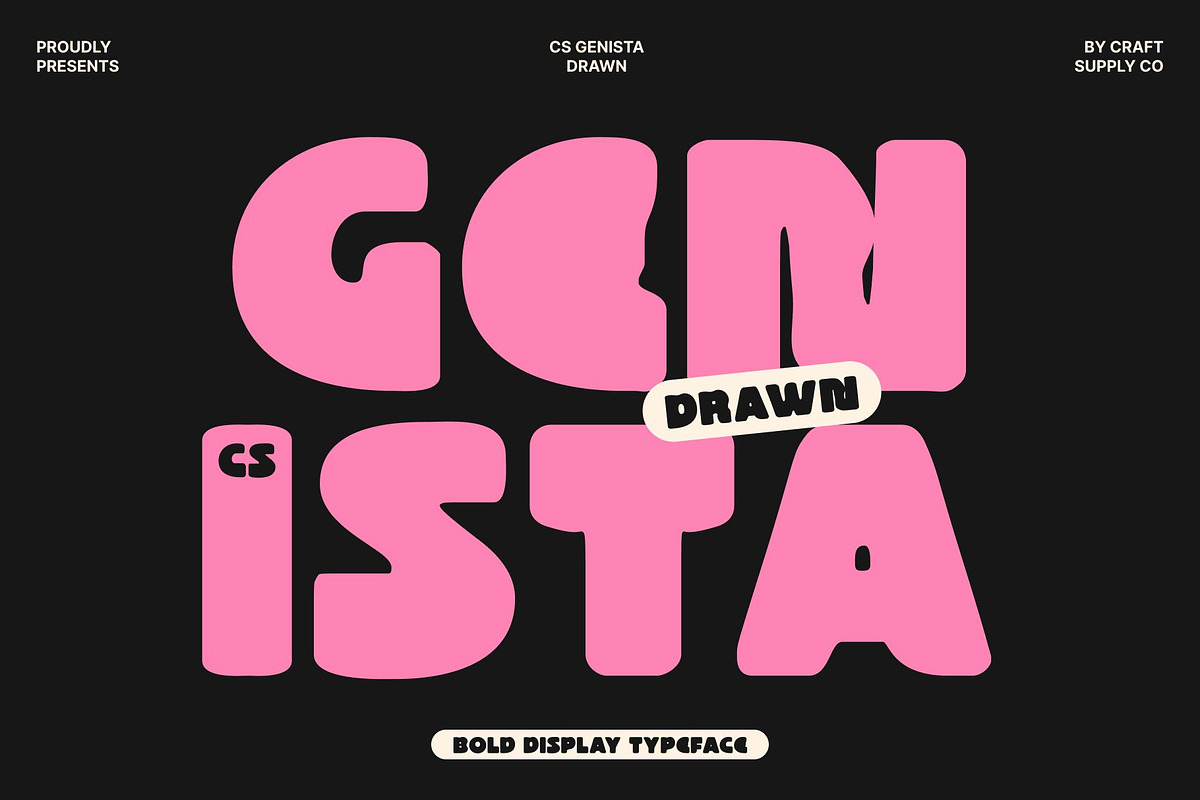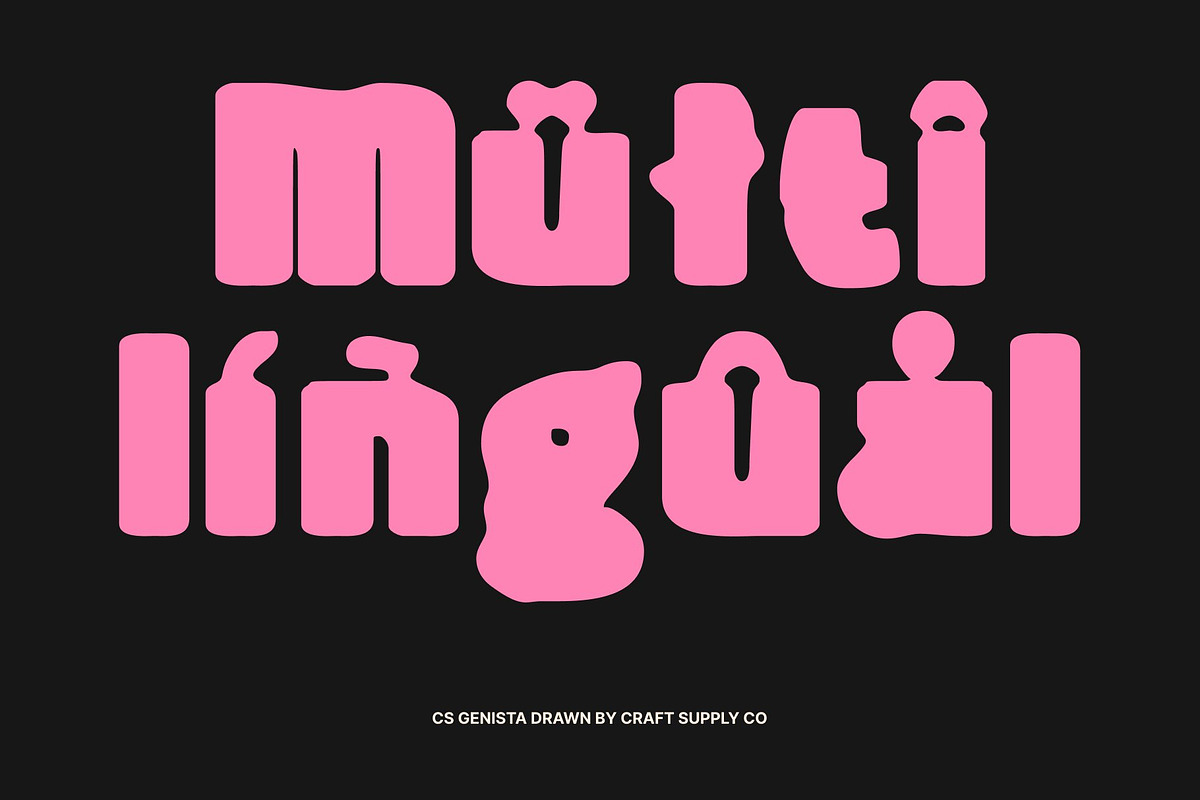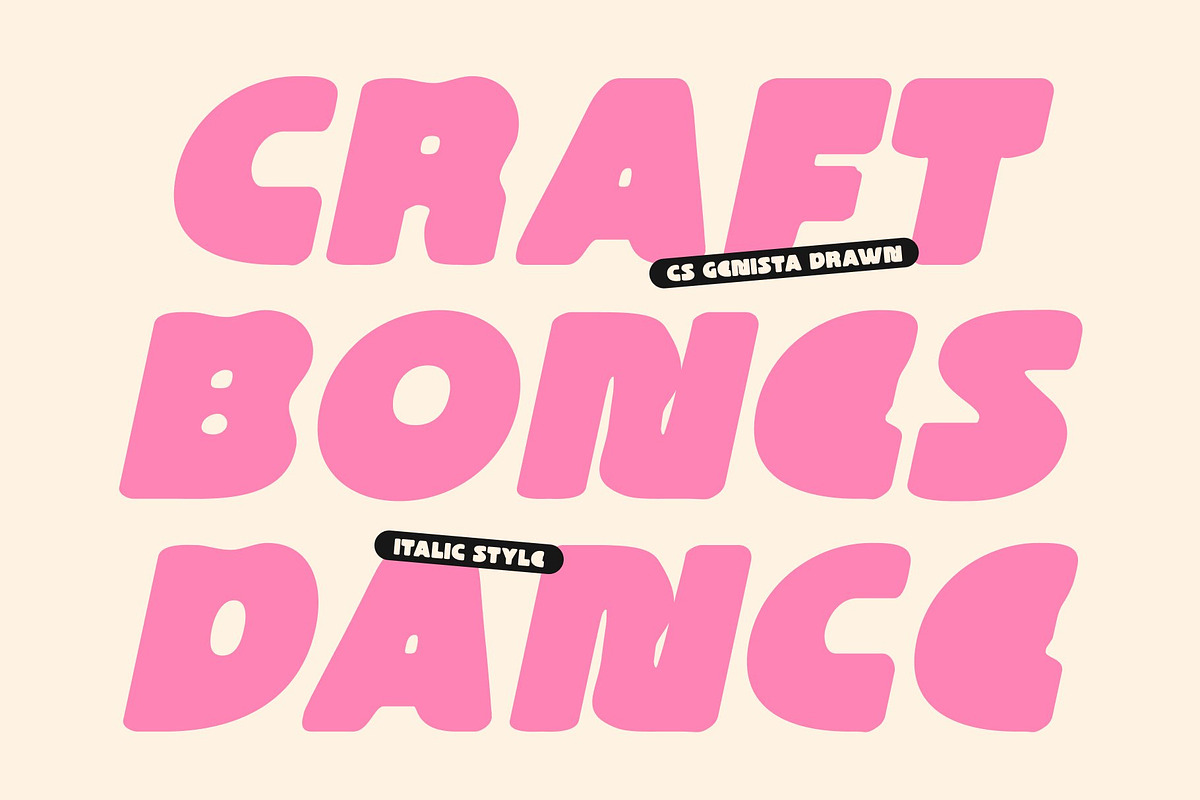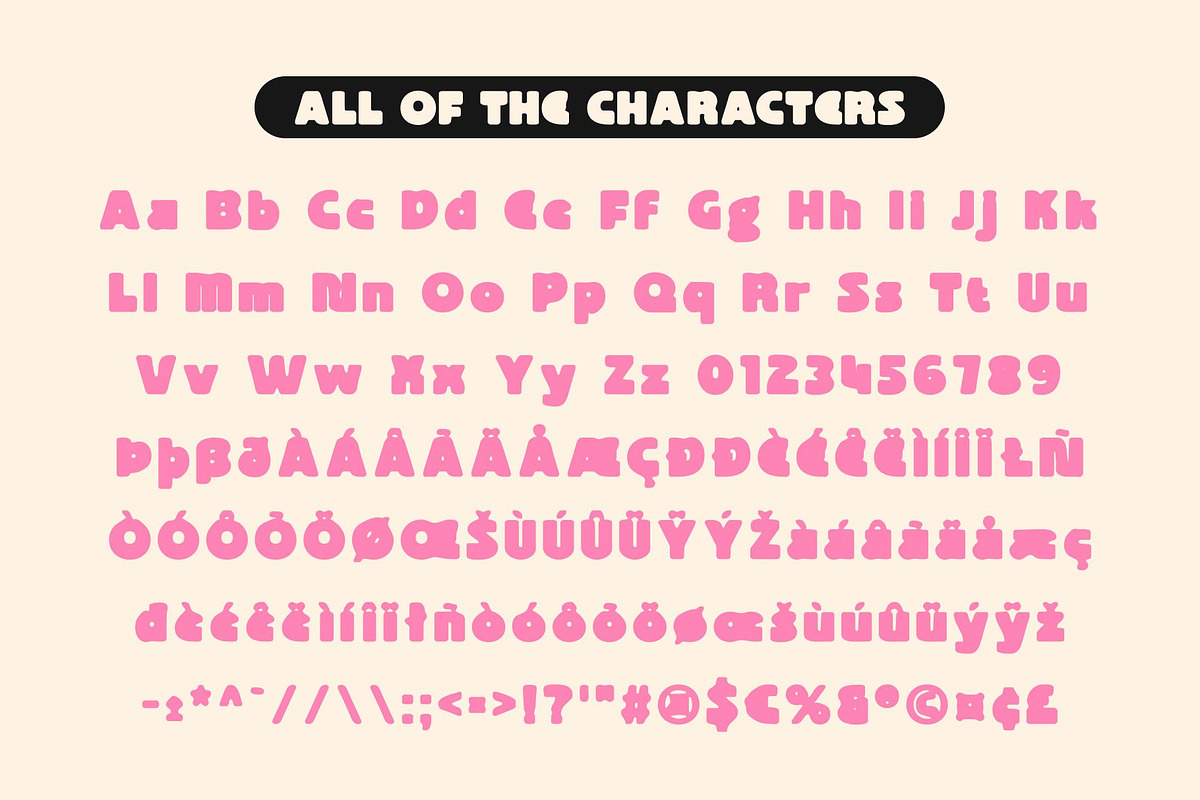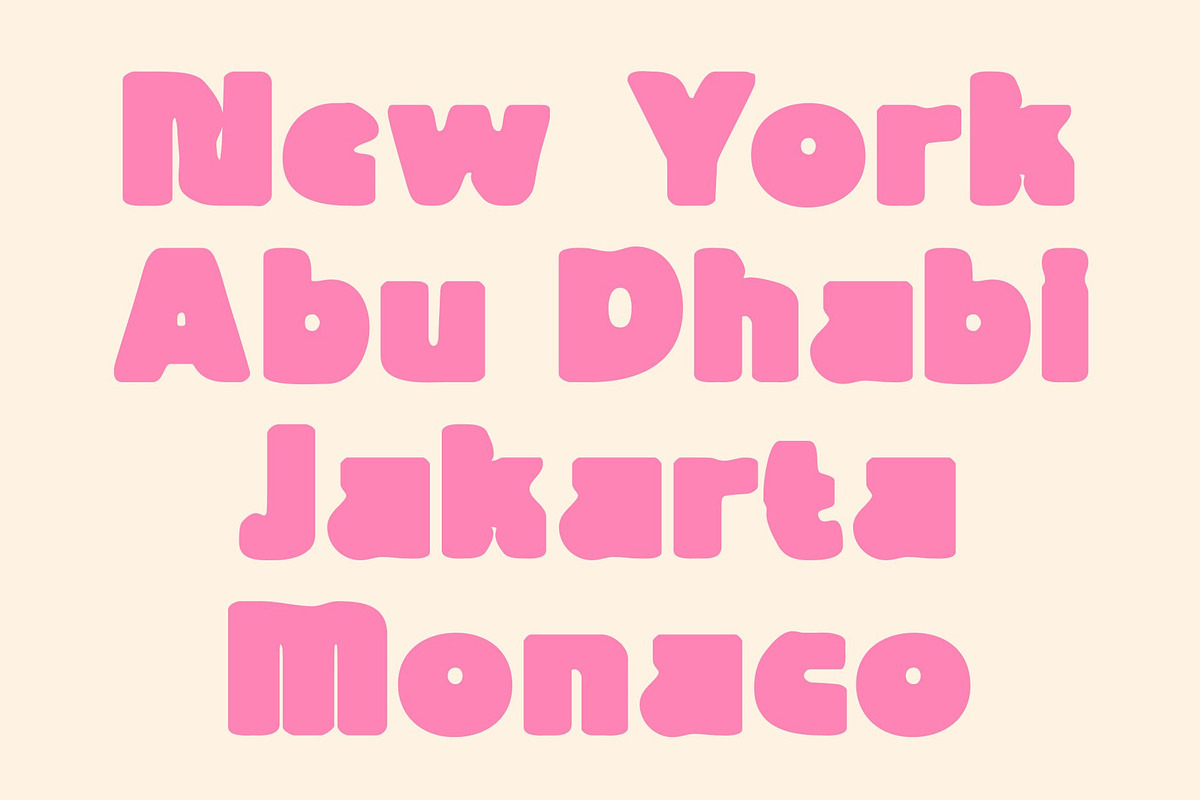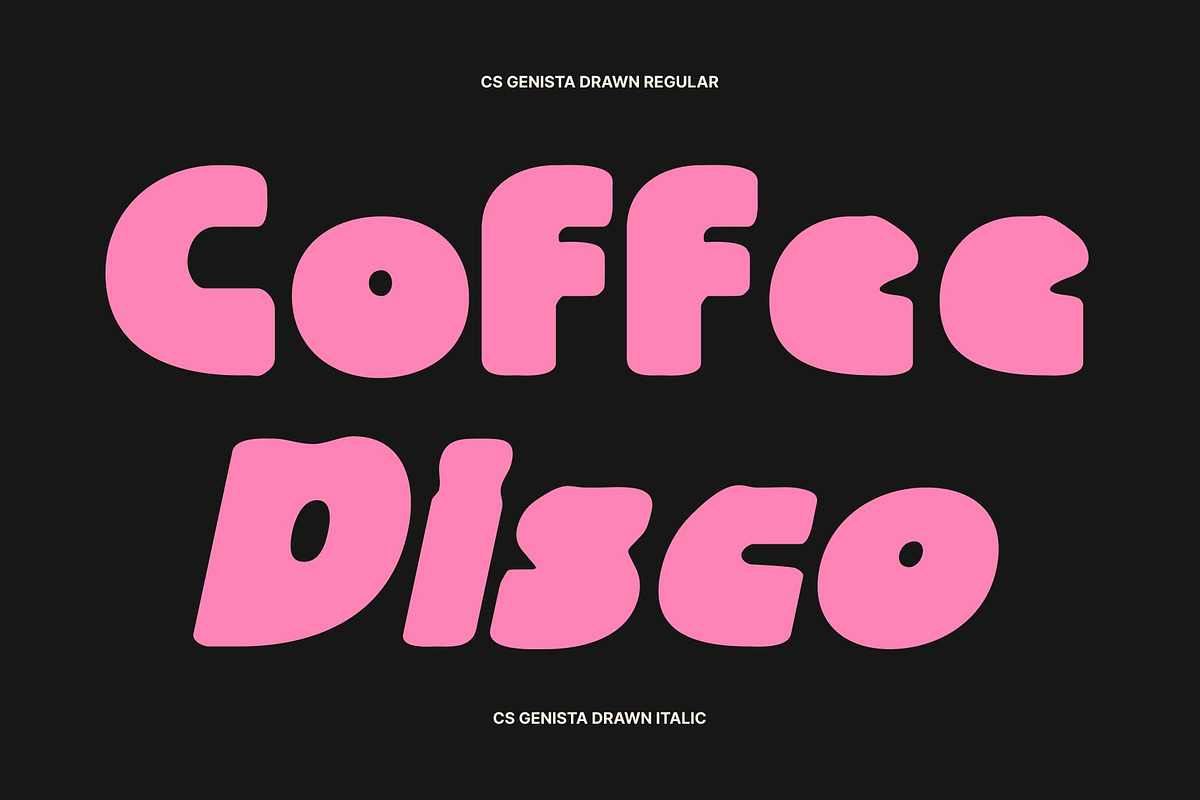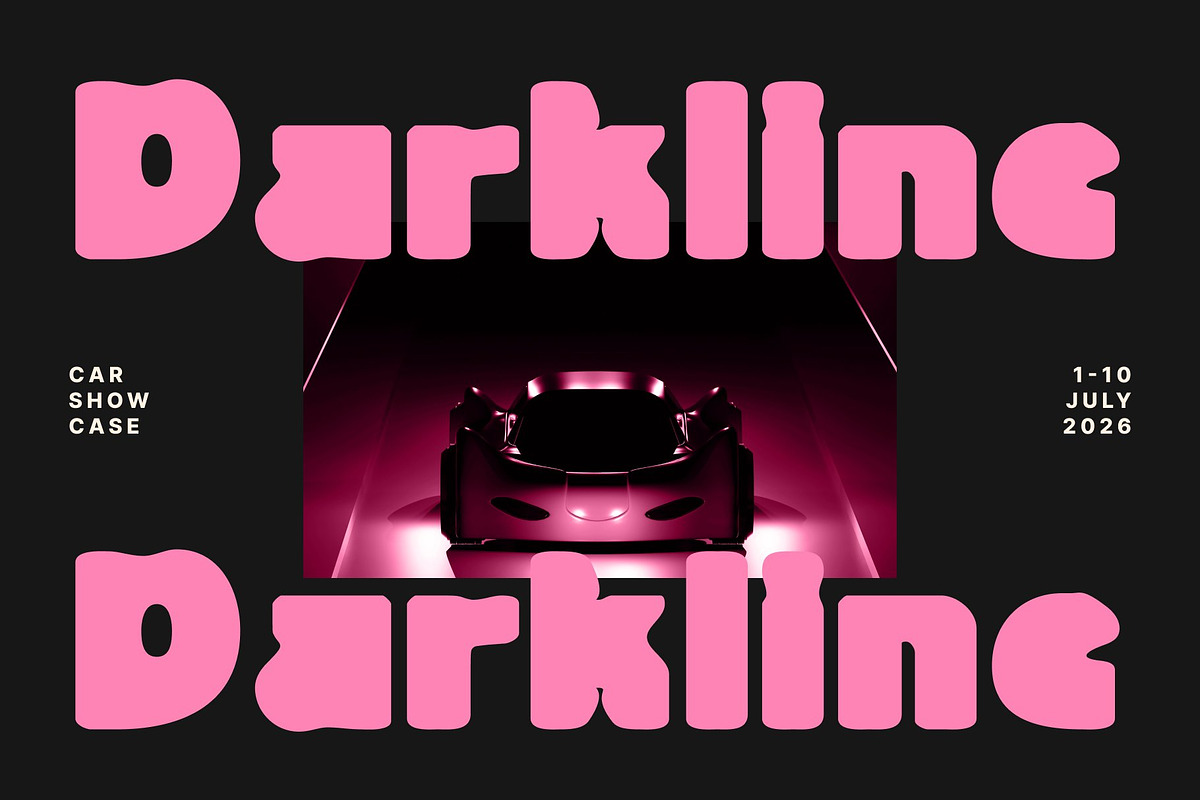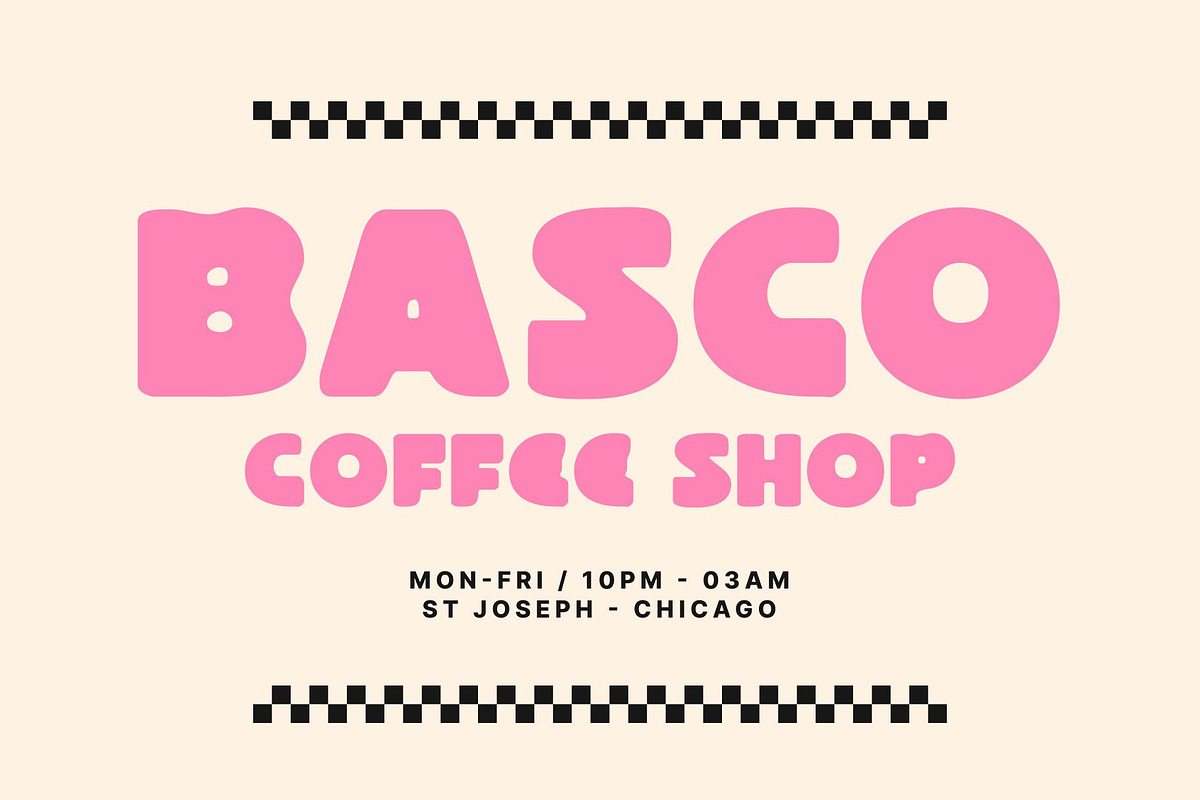
CS Genista Drawn
CS Genista Drawn – Bold Display Sans Serif with Hand-Drawn Geometric Impact
Strong Geometric Structure for Maximum Presence This is a bold display sans serif font crafted to command attention. Its geometric forms provide firm, balanced thickness, giving each letter a solid, structured appearance. This strong framework ensures clarity and impact, making it perfect for designers who want text that stands out in any visual composition.
Hand-Drawn Effect for Expressive Personality The drawn effect adds a handcrafted, organic quality to this font, softening the strict geometry while maintaining its bold presence. Each character carries subtle textures and variations, giving the font a stamp-like, tactile appearance that enhances visual interest. This combination of precision and artistry creates a typeface that feels both powerful and unique.
Ideal for Branding, Headlines, and Poster Art This font excels in display applications where boldness and clarity are essential. Its geometric structure and expressive texture make it perfect for branding projects, playful posters, packaging, and other creative visual work. The font’s impactful forms ensure your designs are memorable and visually commanding.
A Typeface That Balances Strength and Creative Flair This font is designed for projects that need both authority and character. Its bold, geometric foundation conveys confidence, while the hand-drawn details infuse personality and uniqueness. Use this font to elevate your designs with a font that delivers firm structure, expressive artistry, and standout visual impact.